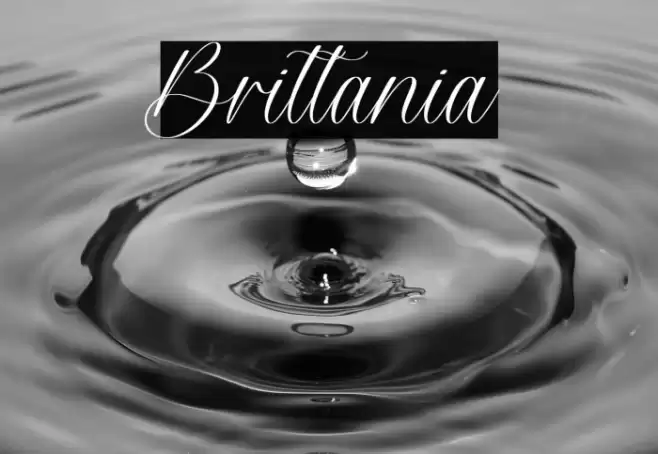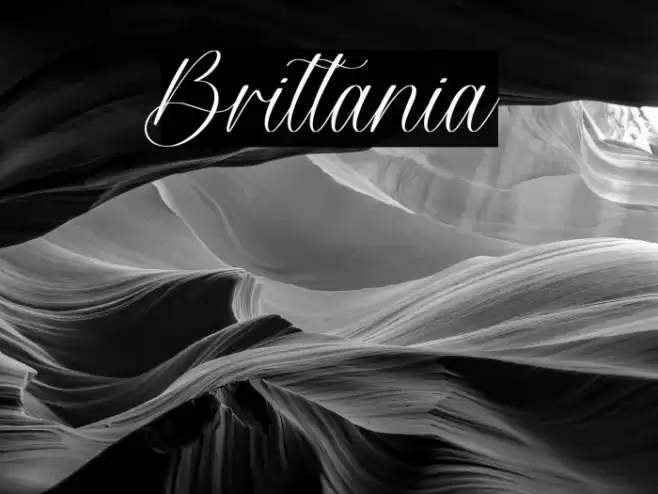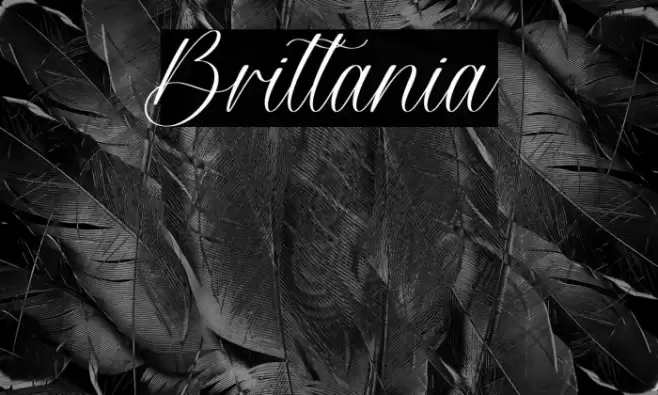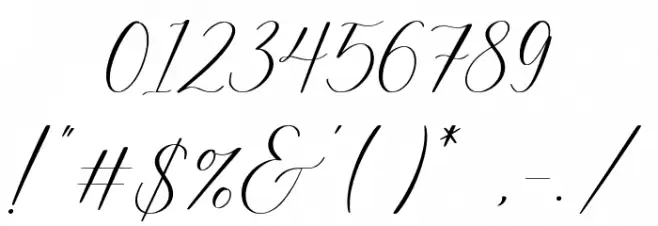
Brittania Font
Brittania Description
This elegant script font features fluid, graceful strokes that mimic the style of classic calligraphy. The characters are connected with sweeping curves, giving it a sophisticated and flowing appearance. The uppercase letters are tall and slender, while the lowercase letters maintain a consistent rhythm and balance. The numerals and special characters are designed to complement the overall aesthetic, making it suitable for formal and decorative applications. The font's delicate lines and high contrast between thick and thin strokes enhance its refined and luxurious feel.
A graceful script font with elegant, flowing calligraphic strokes from Regular fonts.
- Proposed Projects: Ideal for wedding invitations, elegant branding, luxury packaging, and formal event programs.
- Overall Style: Elegant
- Use Case: Logos, Invitations, Decorative Text